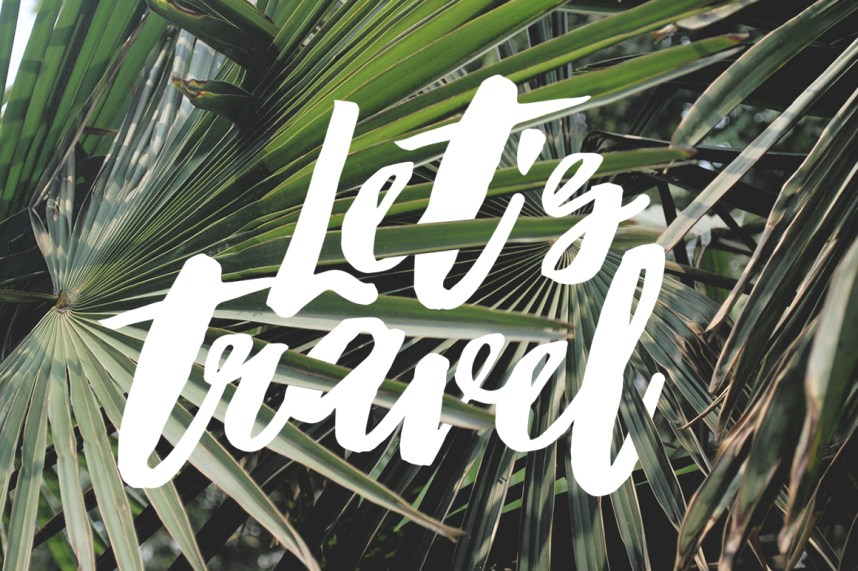
Hubster Script Font
Introducing Hubster , an artsy, unruly handwritten duo font full of charisma, simple and easy to create awesome lettering. Hubster comes with upper and lowercase Standard Characters, Punctuation, Numerals, Special European Characters and additional Caps Typeface.
Features:
-Uppercase & lowercase
-Punctuation & numerals
-Multi-language characters
-Bonus Caps